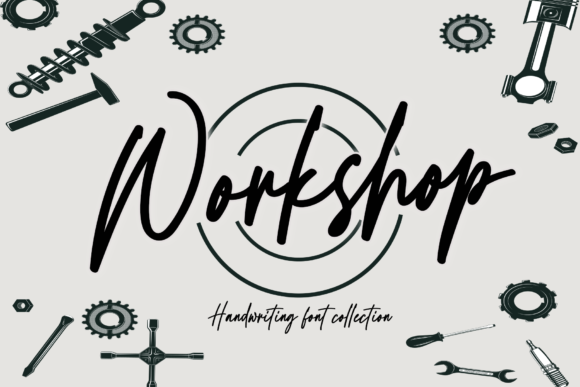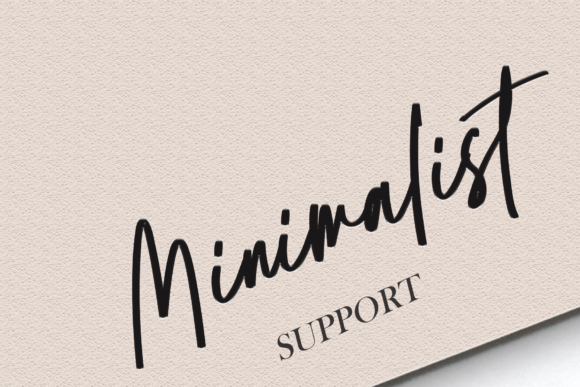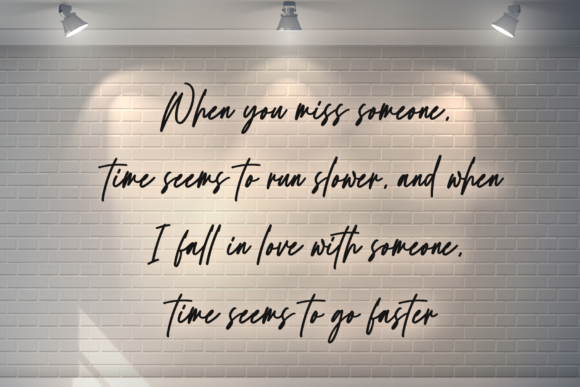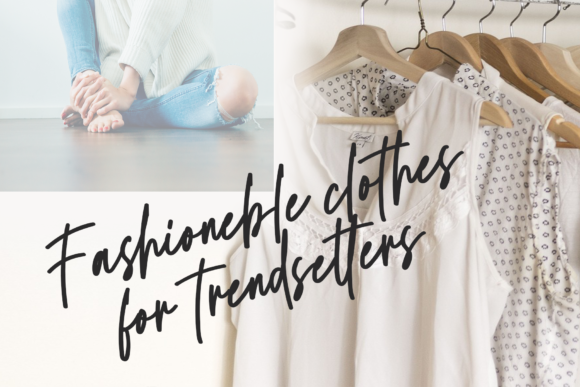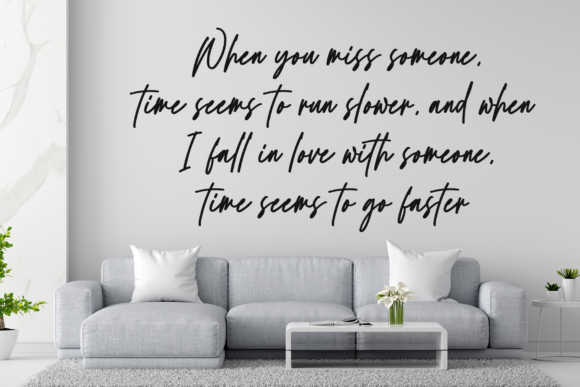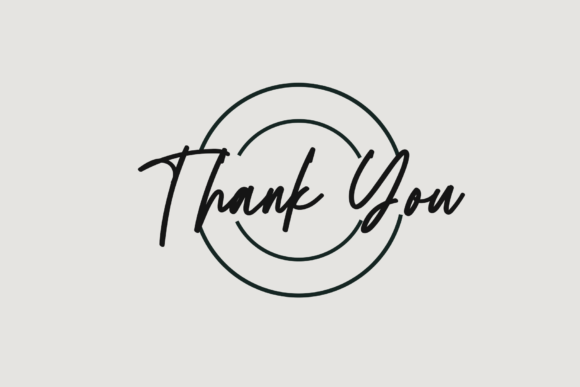
Workshop Font
About Workshop Font
Step into the enchanting world of Workshop, a magical script font meticulously crafted with a touch of elegance. Designed to captivate and inspire, Workshop is more than just a font—it’s a portal to transform any creative idea into a true masterpiece. Whether you’re seeking fonts to enhance your Instagram presence or calligraphy scripts for captivating DIY projects, Workshop effortlessly infuses a magical quality into your designs.
The charm of Workshop lies in its ability to weave a spell of sophistication and creativity. Every stroke of this script font is imbued with a sense of magic, making it perfect for those who seek to add a touch of enchantment to their visual storytelling. The flowing lines and graceful curves create an ethereal quality, allowing your words to dance across the canvas with elegance and style.
Ideal for various applications, Workshop lends itself seamlessly to Instagram posts, where its magical script transforms captions and quotes into visual poetry. The font’s versatility extends to DIY projects, becoming the perfect companion for calligraphy scripts that elevate handmade creations to a new level of artistry. From personalized gifts to event invitations, Workshop ensures that every piece is infused with a touch of enchantment.
As you delve into the world of Workshop, you’ll discover its transformative power. This font transcends the ordinary, turning each creative endeavor into a unique and mesmerizing work of art. Its magical allure makes it well-suited for a wide range of projects, including logos, headings, invitations, posters, and more.
Step into the realm of endless possibilities with Workshop—a font that doesn’t just communicate words but weaves a narrative of elegance and magic. Whether you’re a seasoned designer or someone embarking on a creative journey, Workshop invites you to explore the extraordinary. Let your creativity soar as Workshop becomes the enchanting brushstroke that brings your visions to life, turning every project into a true piece of art.